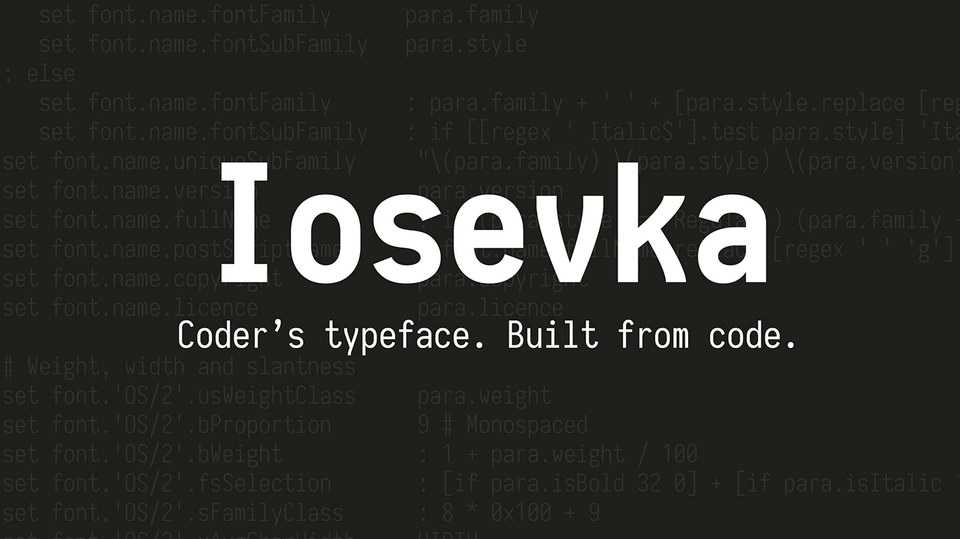
Download Iosevka typeface, a slender monospace sans-serif and slab-serif font family in 9 weights with Italics and Obliques, inspired by Pragmata Pro, M+ and PF DIN Mono, designed to be the ideal font for programming.
Designer: Belleve Invis